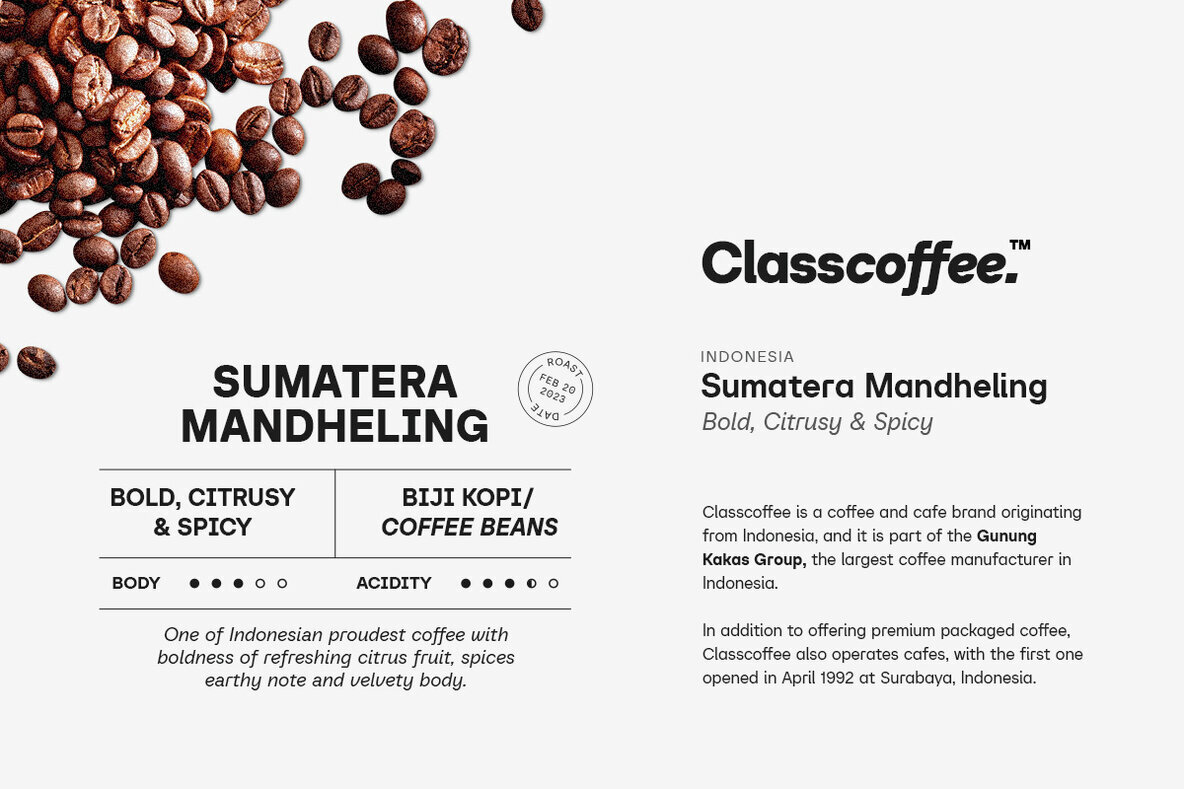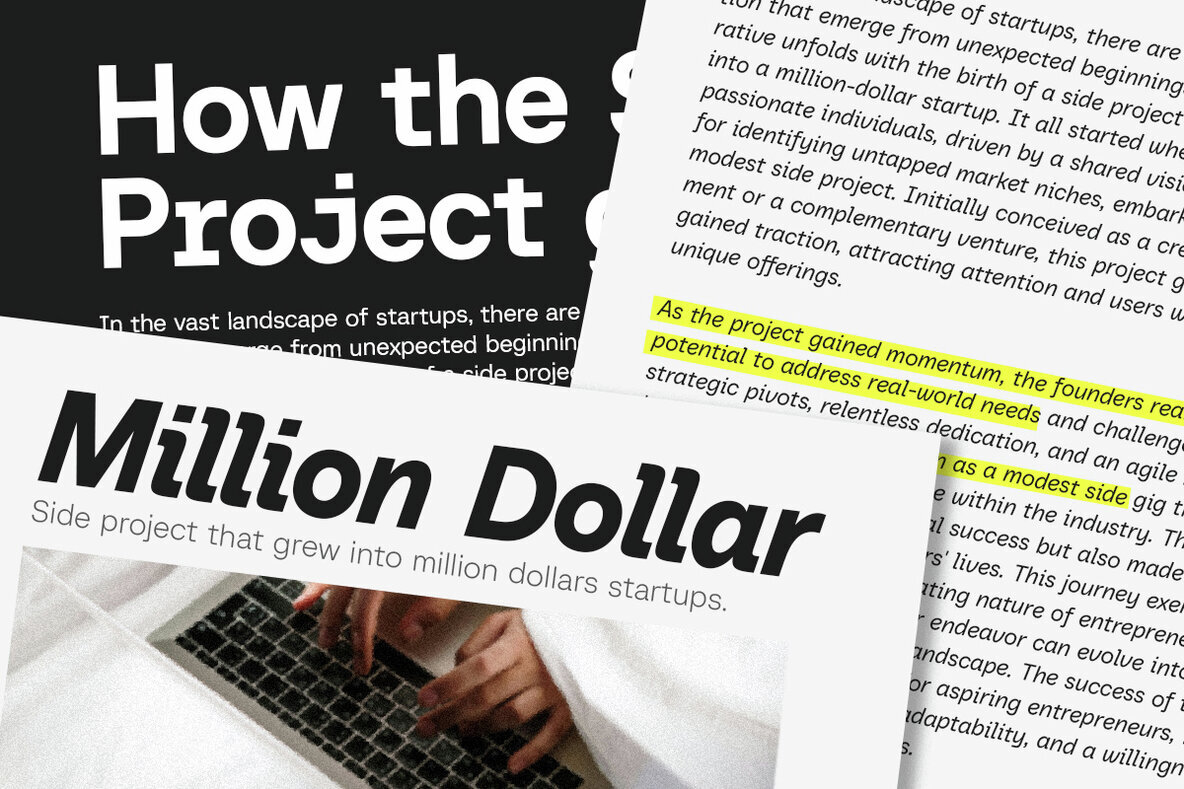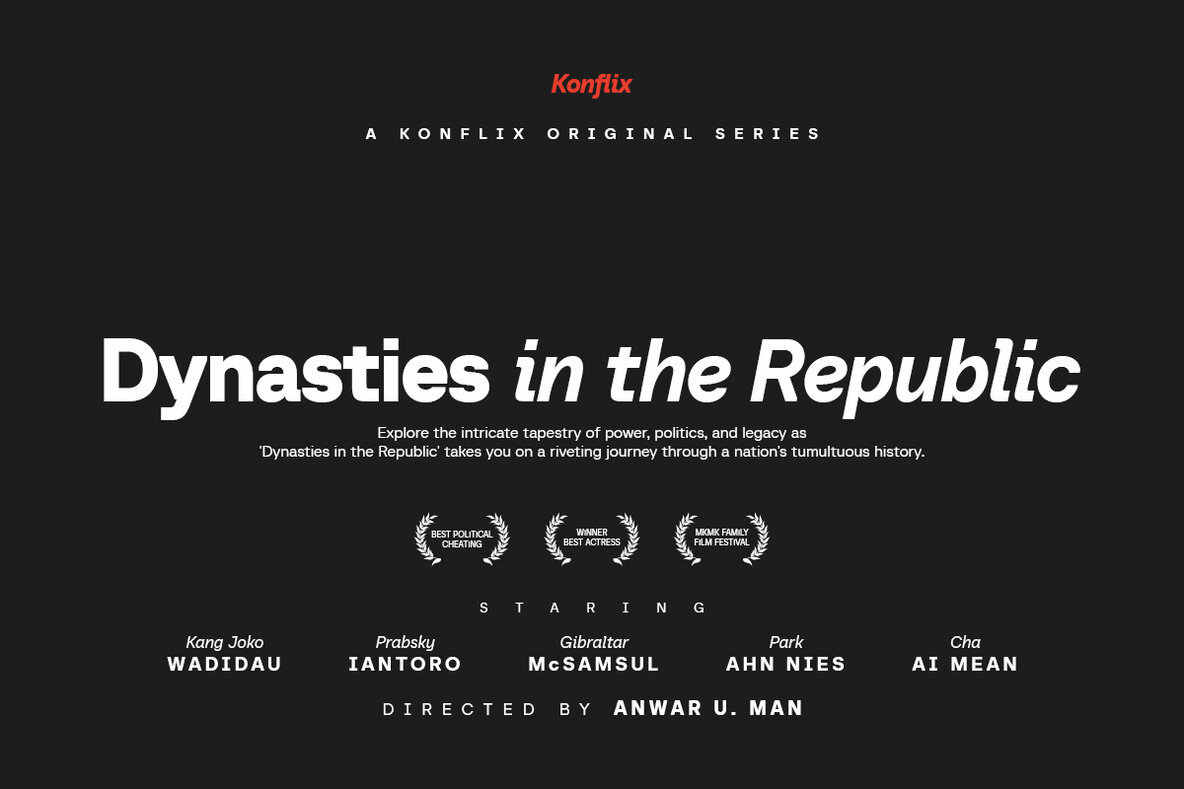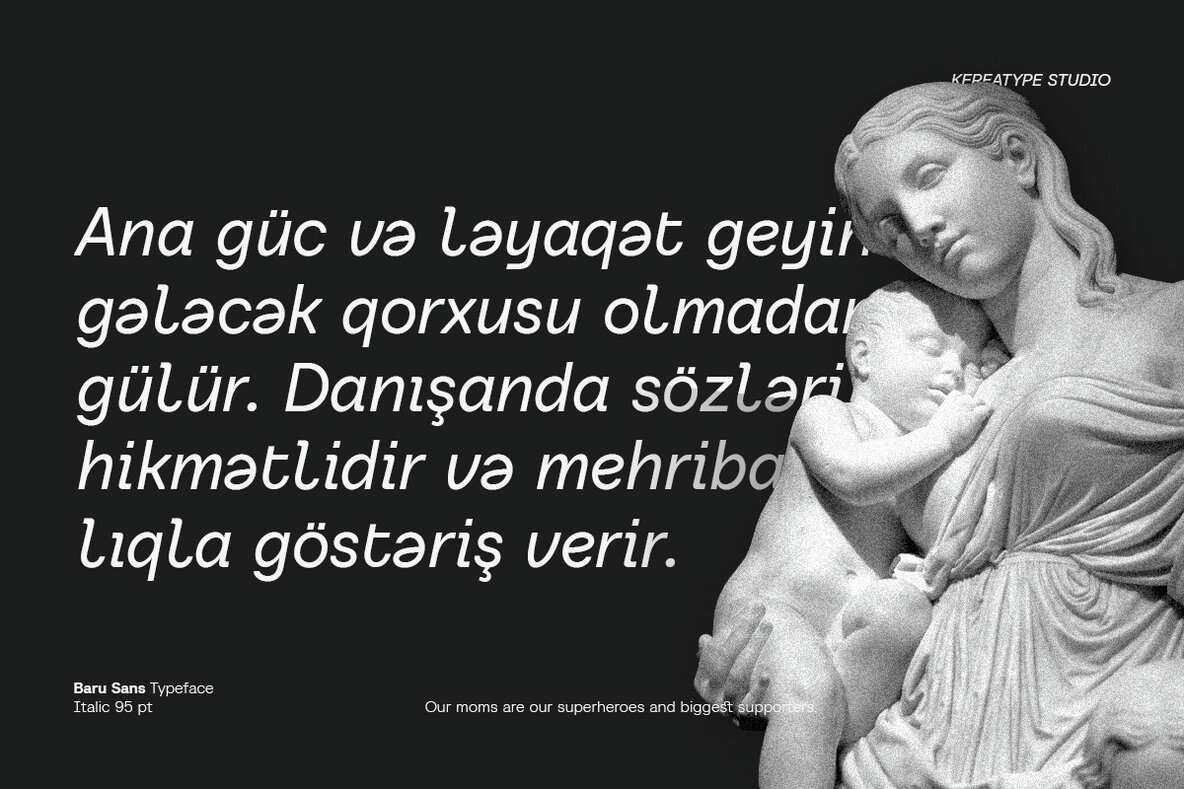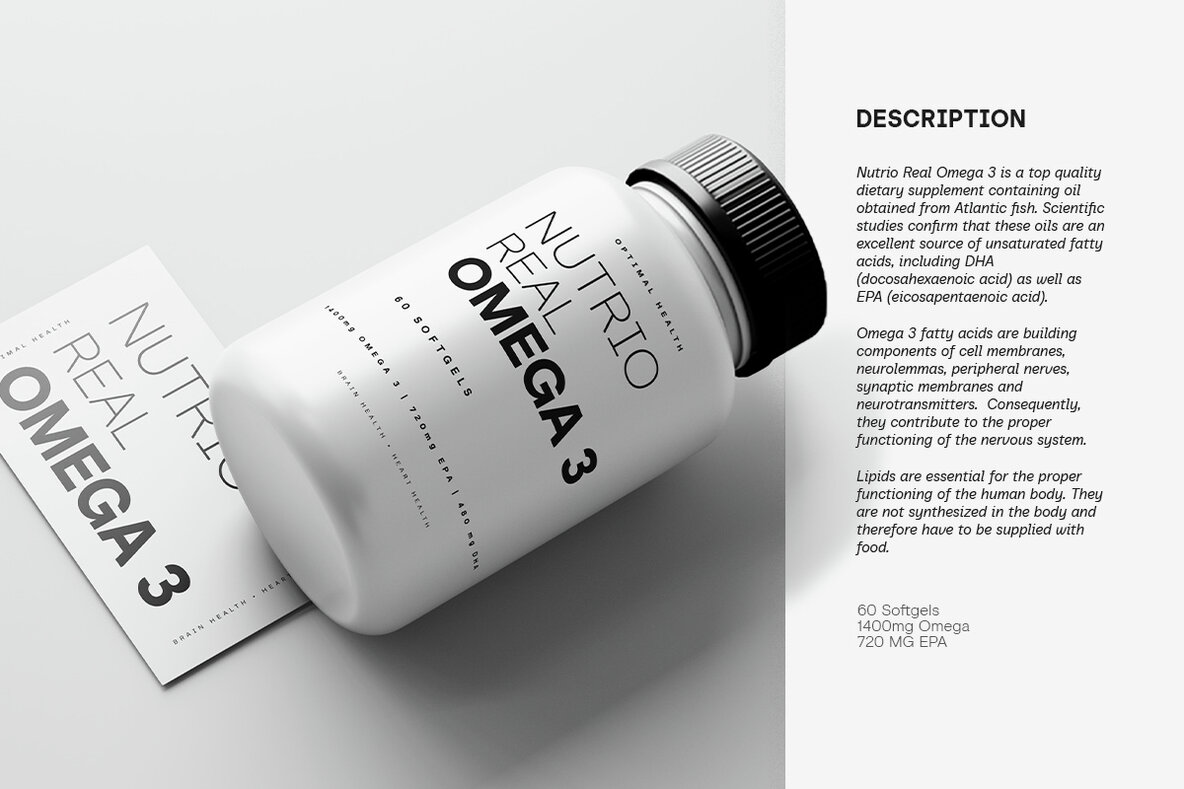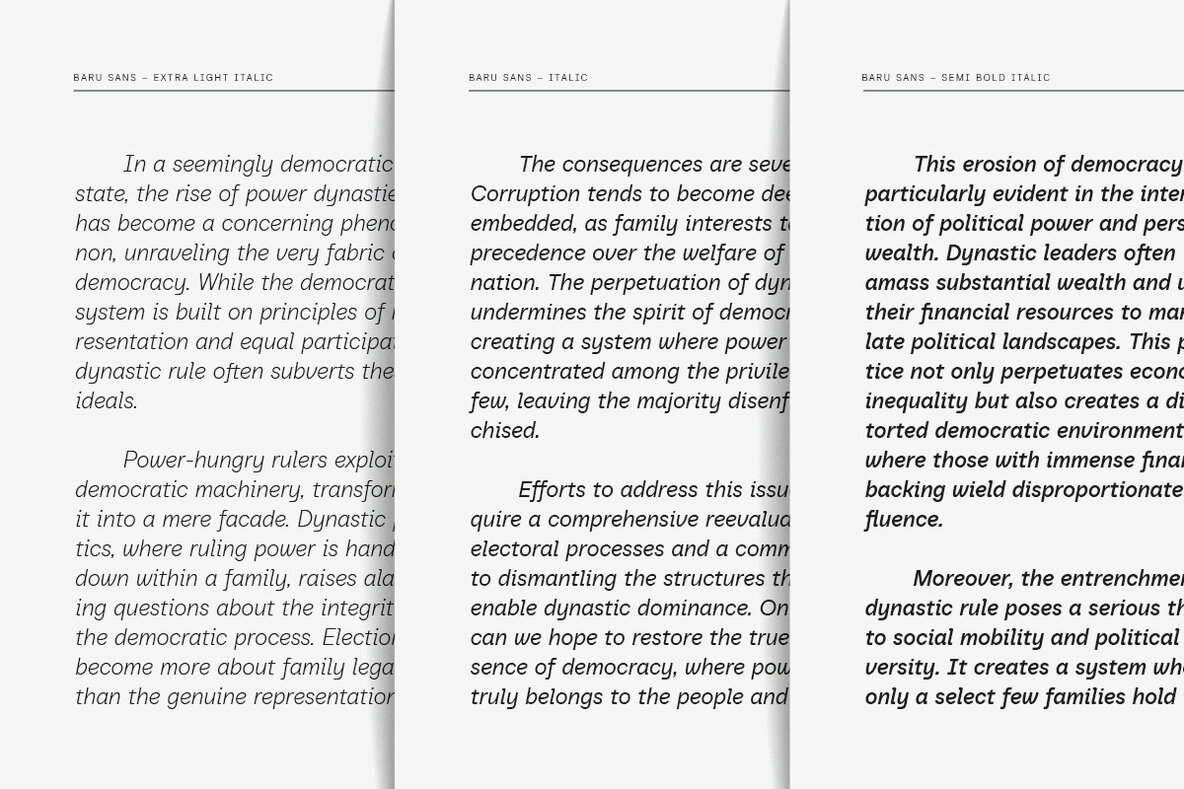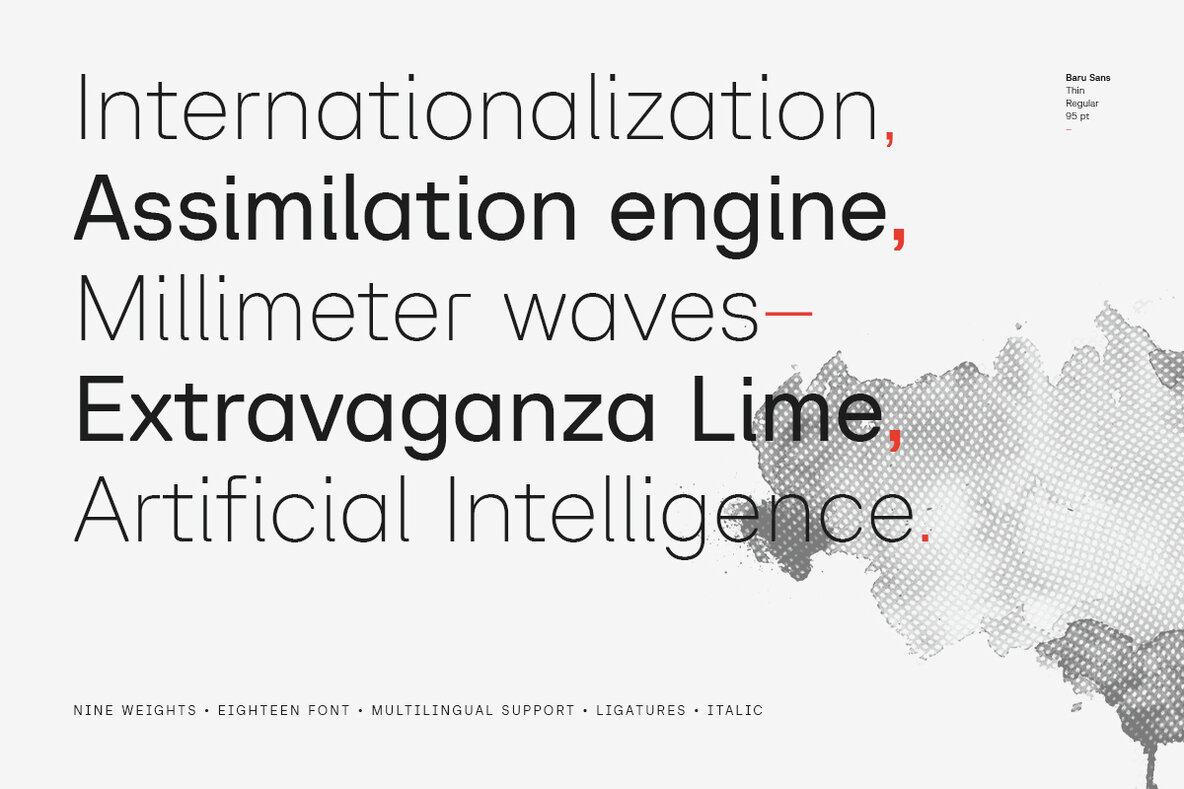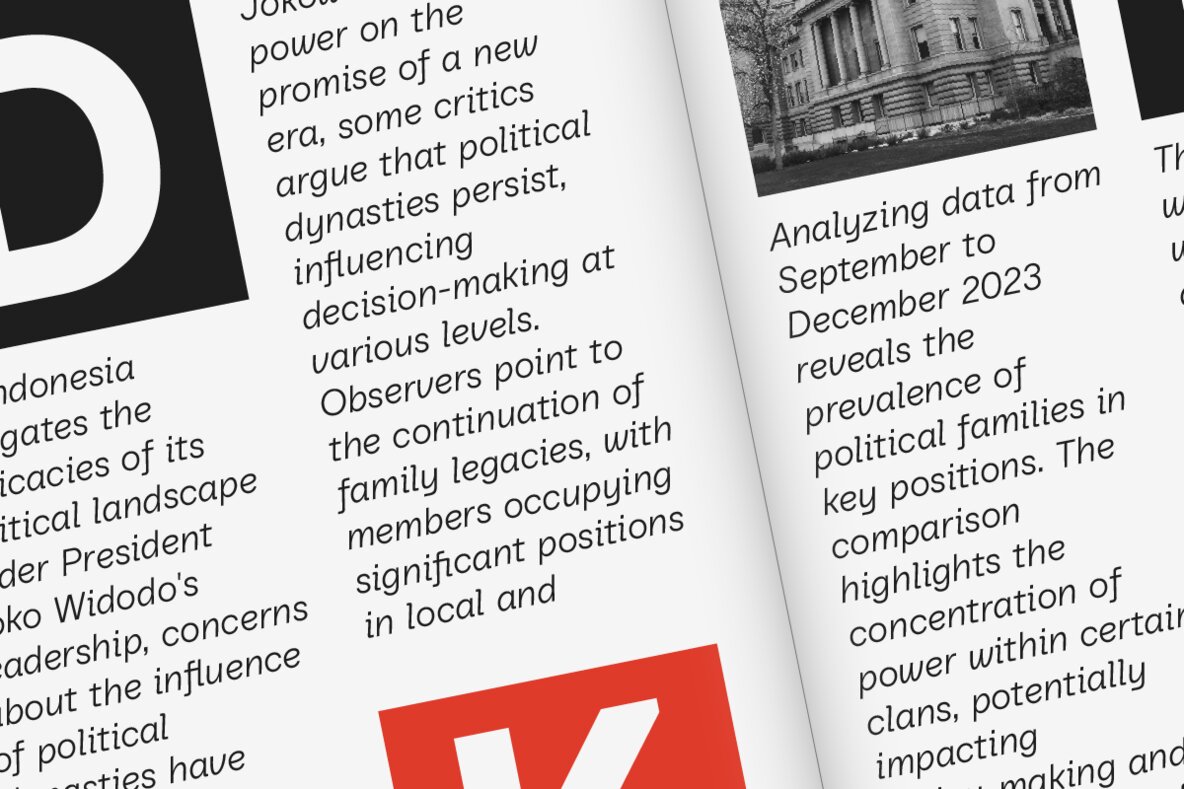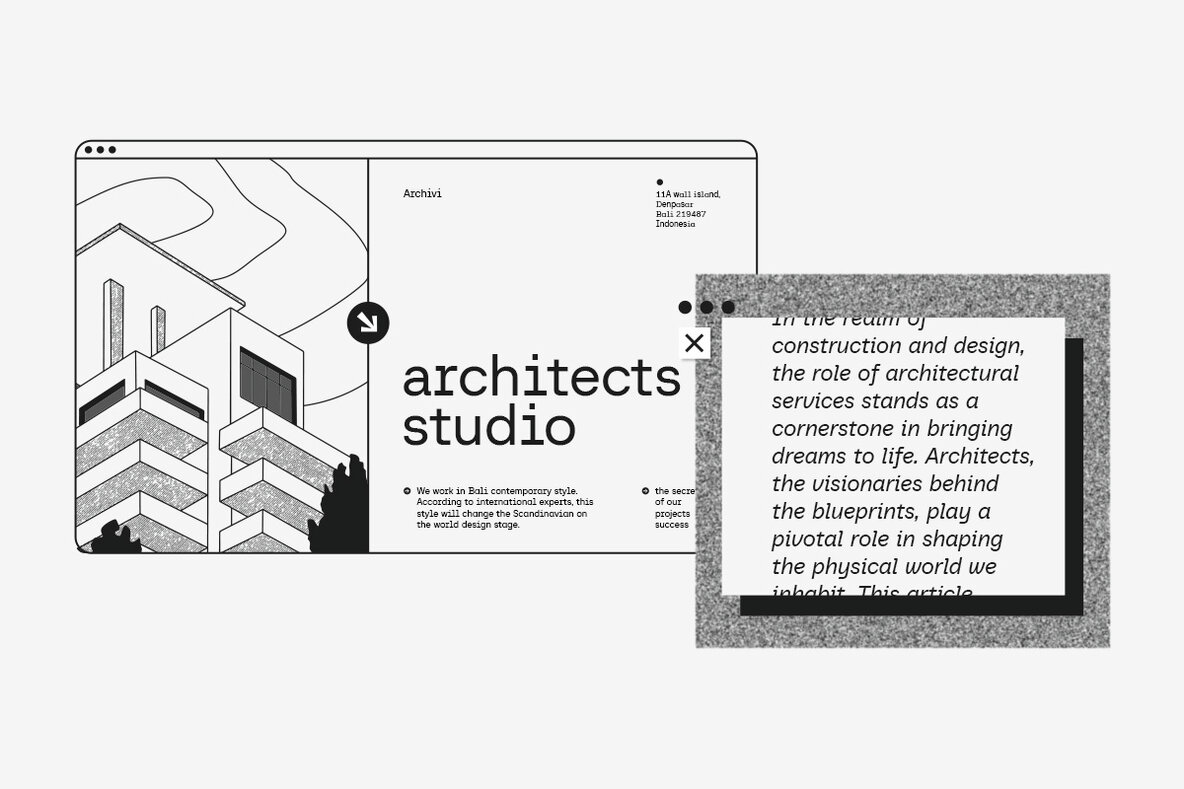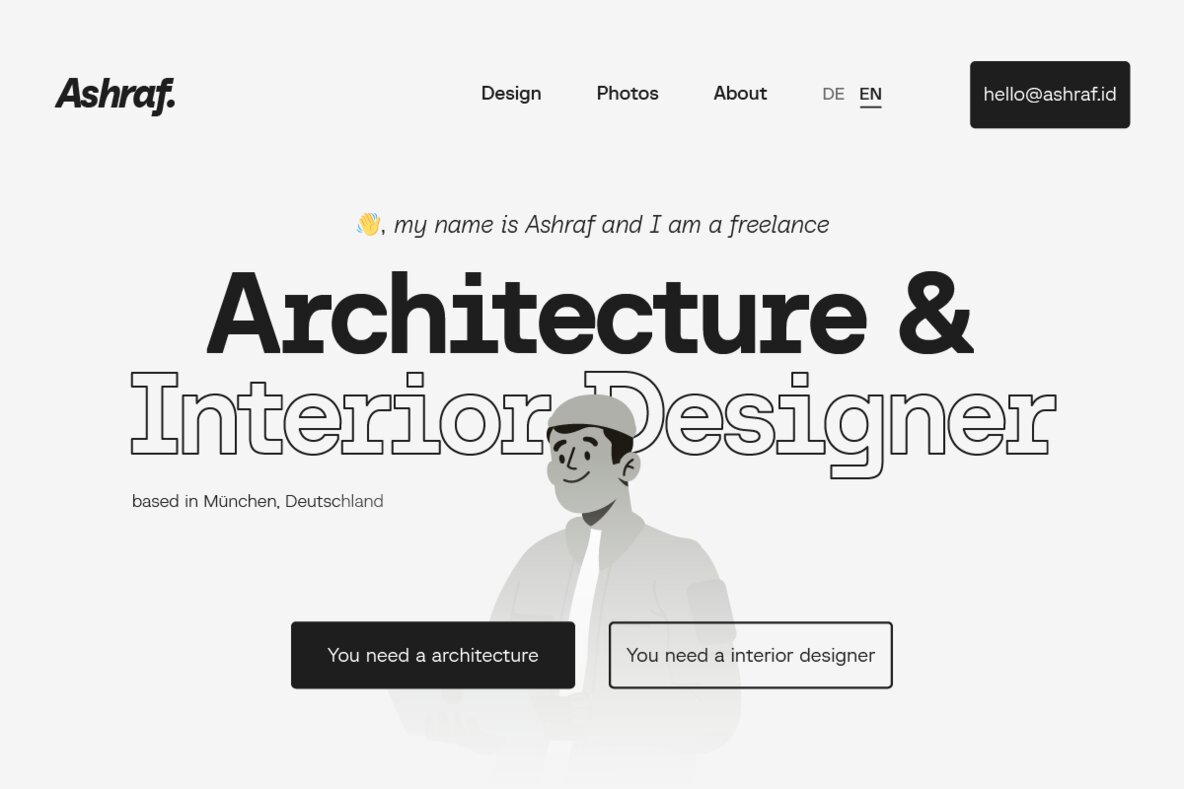
Baru Sans Font
Baru Sans is a geometric typeface that strikes a balance between the precision of geometric foundations featuring chopped terminals with distinctive 90º strokes to reinforce design aesthetics. Moreover, the italic version of the Baru Sans font embodies a humanist style inspired by handwriting. The name "Baru" has a meaning 'new' or 'fresh,' reflecting the font's aim to set unprecedented design trends. With 9 weights, including upright italics and true italics, the total of 18 fonts offers flexibility for various applications in typographic design. These weights range from the precision of Thin weights to the impressive Super weights, making it suitable for use in extended columns of text, artful editorial layouts, or compelling motion graphics.